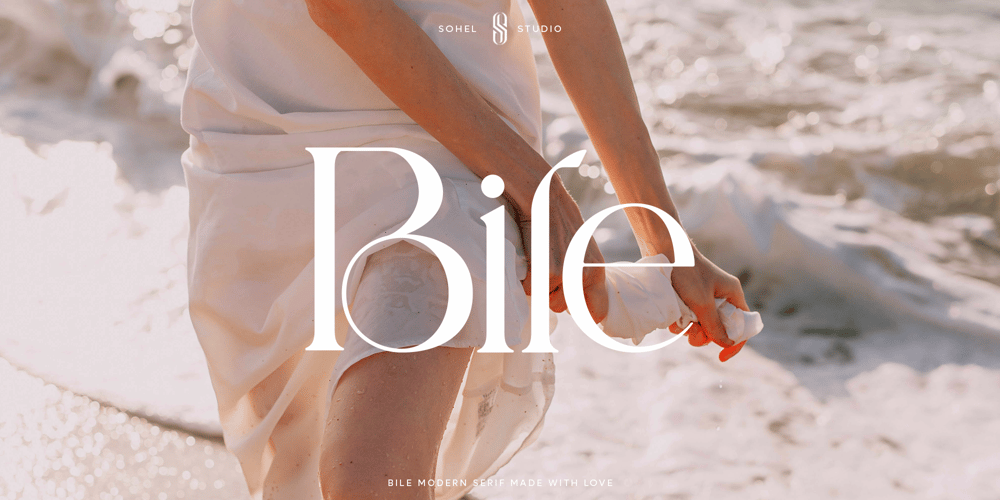
Bile Font Family was designed by Akhmad Husain Rifa’i and published by Sohel Studio. Bile contains 1 styles and family package options. Bile is a Classy serif typeface Unique alternate , multilingual support with perfect kerning. This typeface is perfect for an elegant & luxury logo , classy editorial design, women’s magazine, fashion brand , cosmetic brand, fashion promotion , modern advertising design, invitation card, art quote, home decoration , book/cover titles, special events, and much more. This elegant font needs to be in your collection and is perfect for your next luxury design project.Bile Features: · Uppercase & Lowercase · Alternates & Ligatures · Numerals & Punctuation · Accented characters · Multilingual Support · Unicode PUA EncodedIf you want the SVG version please contact me.While using this product, if you encounter any problem or spot something we may have missed, please don’t hesitate to drop us a message. We’d love to hear your feedbacks in order to further fine-tune our products. Thanks and have a wonderful day .